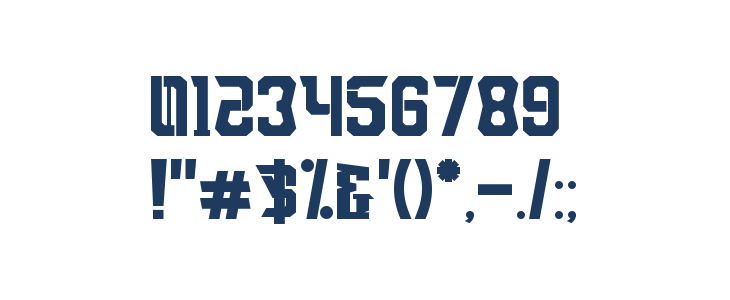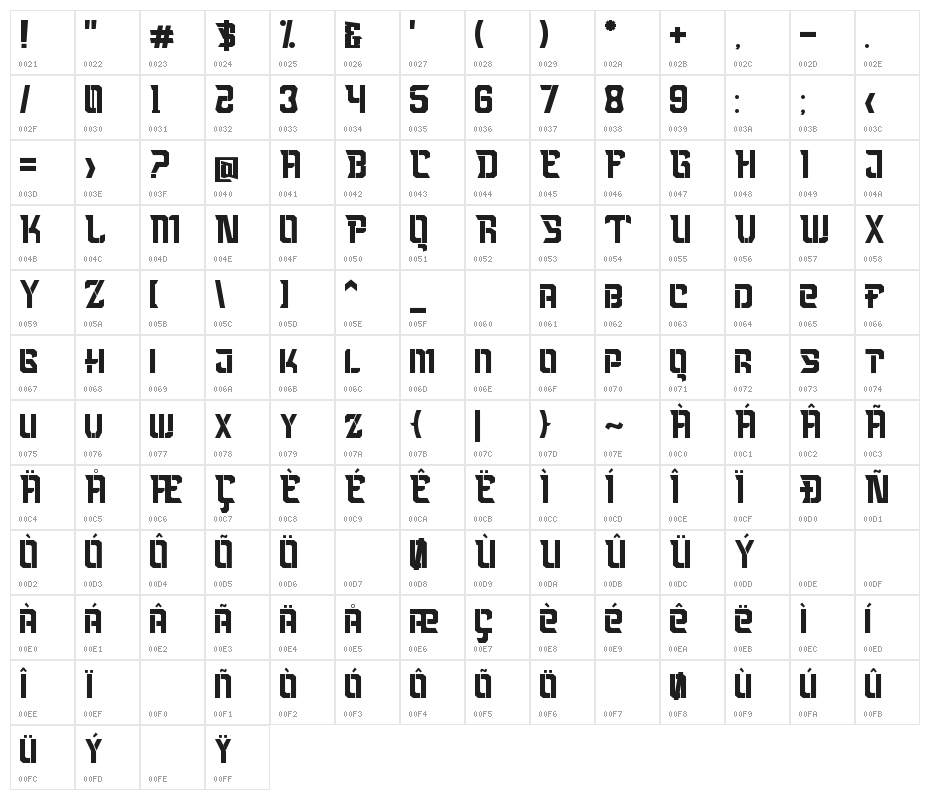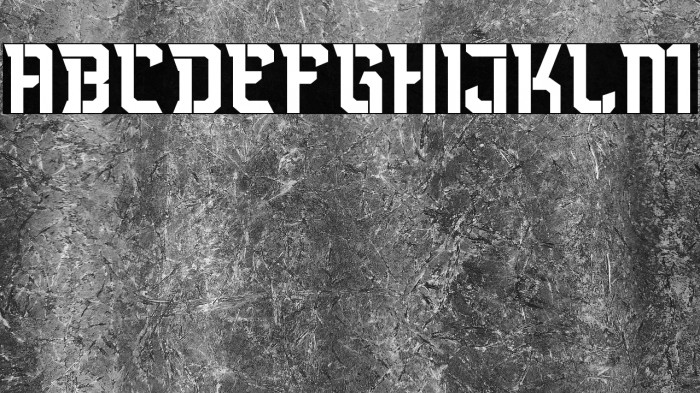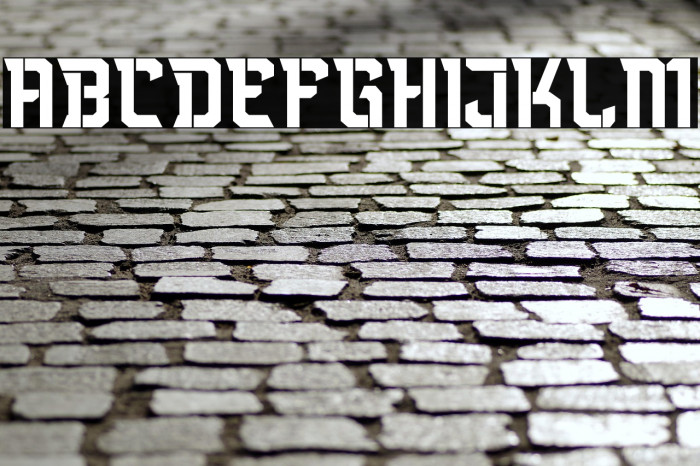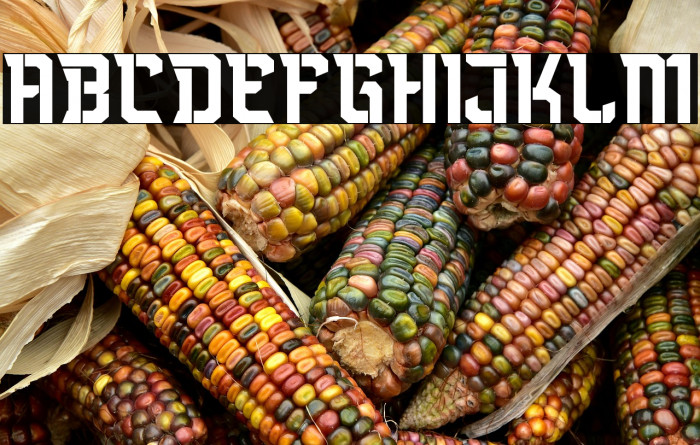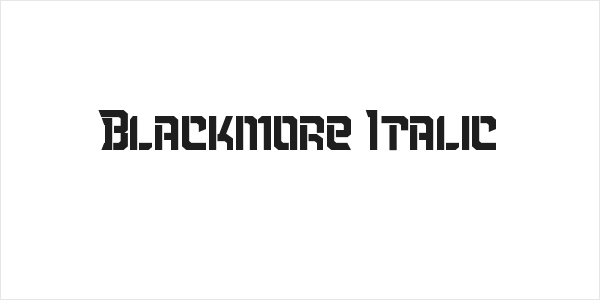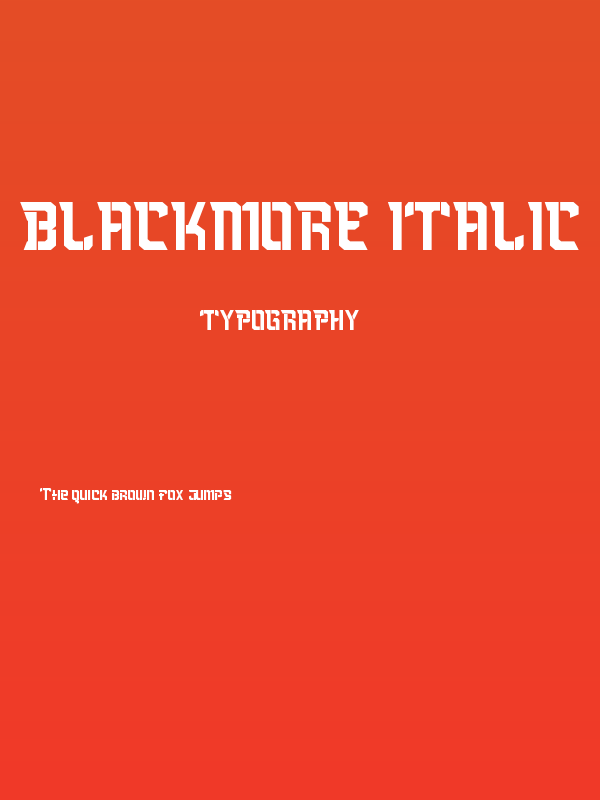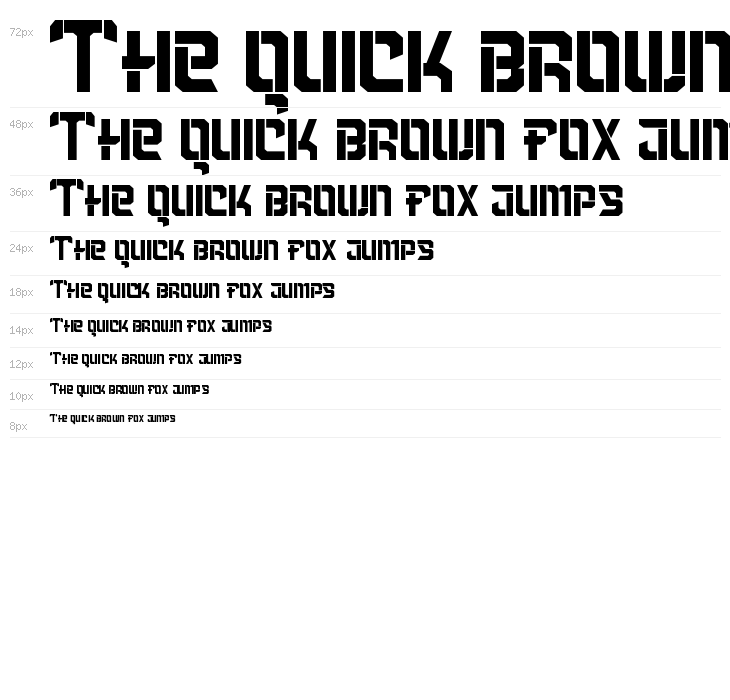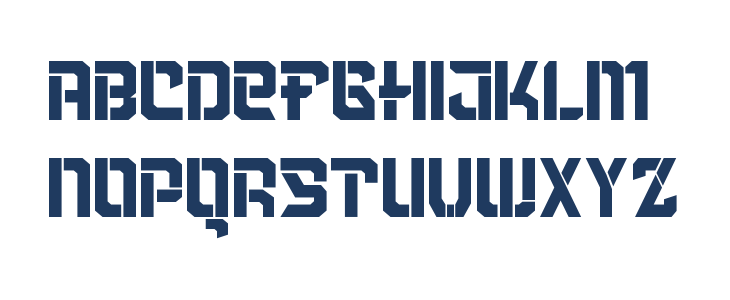
Blackmore Italic Font
Blackmore Italic Description
This font features a bold, angular design with a distinct geometric style. The characters are constructed with sharp edges and a blocky appearance, giving it a strong and commanding presence. The uppercase and lowercase letters maintain a consistent height, contributing to a uniform look. The numbers and special characters are equally bold, ensuring readability and impact. This font's unique style makes it suitable for attention-grabbing designs.
| Proposed Projects | Ideal for posters, logos, video game titles, and any project requiring a strong, impactful typeface. |